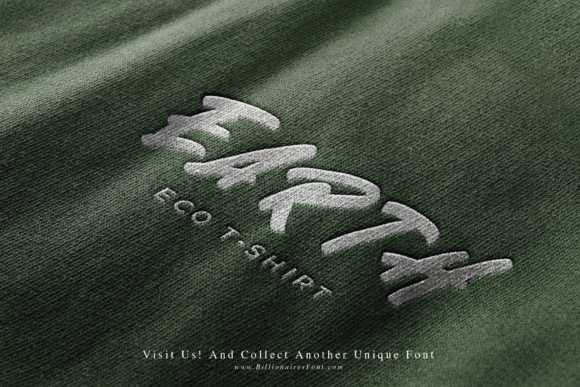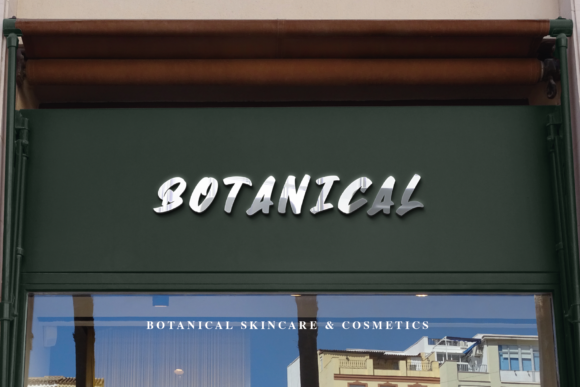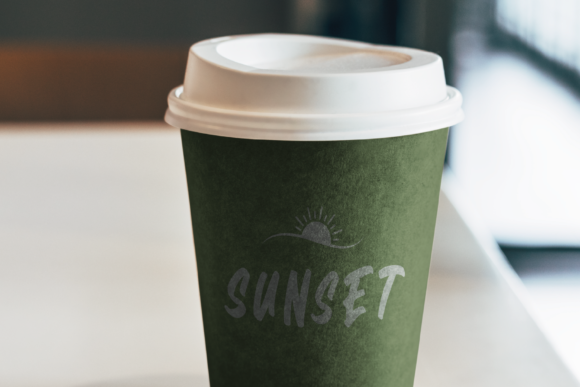
The Designer’s Delight: Unleashing the Power of Darkside Font
I’ll never forget the time I was working on a project for a client who wanted a bold, edgy look. I had spent hours scouring the internet for the perfect font, but nothing seemed quite right. That was until I stumbled upon Darkside Font. This cool and brushed display font has been a game-changer for my designs, and I’m excited to share its awesomeness with you! 😊
I’ve had the pleasure of working with Darkside Font on several projects, and here’s what I think:
- ✨ Easy to use: Darkside Font is PUA encoded, which means you can access all the glyphs and swashes with ease. No more tedious searching for the perfect character!
- ✅ Highly versatile: This font is perfect for a wide range of projects, from posters and flyers to social media graphics and branding.
- 💥 Impactful: Darkside Font is designed to make a statement. Its bold, brushed texture demands attention and adds a touch of edginess to any design.
Now, I’m not going to sugarcoat it – there are a few quirks to be aware of:
- 🤔 Limited use cases: While Darkside Font is amazing for display purposes, it may not be the best choice for body text or smaller font sizes.
- ⚠️ Glyph overload: With so many glyphs and swashes available, it’s easy to get overwhelmed. Take some time to explore the font and plan your design carefully.
The Story Behind Darkside Font
Darkside Font was created by a team of designers who wanted to push the boundaries of traditional typography. Inspired by the raw energy of street art and graffiti, they crafted a font that’s both bold and beautiful. The result is a font that’s perfect for designers, crafters, and creative hobbyists who want to add a touch of edginess to their work.
| Font Name | Darkside Font |
| Author | aldedesign |
| What is PUA encoding? | PUA (Private Use Area) encoding allows font creators to include additional glyphs and characters that aren’t part of the standard Unicode character set. In the case of Darkside Font, PUA encoding makes it easy to access the font’s many glyphs and swashes. |
| Is Darkside Font suitable for body text? | While Darkside Font is amazing for display purposes, it’s not the best choice for body text. Its bold, brushed texture can be overwhelming at smaller font sizes. |